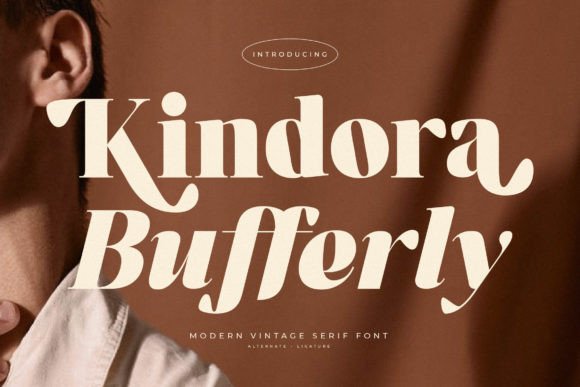
Introducing Kindora Bufferly Font: A Modern Vintage Serif Luxury Font
In the world of typography, fonts play a crucial role in conveying the tone and personality of a brand or project. For those seeking a luxurious and sophisticated look, Kindora Bufferly Font is an excellent choice. This modern vintage serif font, crafted by Letterena, is designed to elevate your projects with its elegant and refined aesthetic.
What is Kindora Bufferly Font?
Kindora Bufferly Font is a luxury serif font that exudes sophistication and elegance. Its modern vintage design makes it suitable for a wide range of projects, from logos and branding to packaging, posters, and more. This versatile font is perfect for those seeking to add a touch of luxury to their work.
Key Features of Kindora Bufferly Font
- Modern Vintage Design: Kindora Bufferly Font boasts a unique blend of modern and vintage elements, making it perfect for those seeking a sophisticated look.
- Luxury Serif Font: This font features intricate serifs that add a touch of elegance to any project.
- Versatile: Kindora Bufferly Font is suitable for a wide range of projects, including logos, branding, packaging, posters, and more.
- Easy to Read: Despite its ornate design, Kindora Bufferly Font remains highly legible, making it perfect for body text and headlines.
Use Cases for Kindora Bufferly Font
Kindora Bufferly Font is an incredibly versatile font that can be used in a variety of projects, including:
- Logos and Branding: Create a luxurious and sophisticated brand identity with Kindora Bufferly Font.
- Homeware Designs: Add a touch of elegance to your homeware designs, such as invitations, greeting cards, and labels.
- Product Packaging: Elevate your product packaging with Kindora Bufferly Font, perfect for luxury goods and high-end products.
- Mugs and Apparel: Create stunning designs for mugs, t-shirts, and other apparel with Kindora Bufferly Font.
- Posters and Quotes: Use Kindora Bufferly Font to create eye-catching posters and quotes that demand attention.
Benefits of Using Kindora Bufferly Font
By incorporating Kindora Bufferly Font into your projects, you can:
- Elevate Your Brand: Add a touch of luxury and sophistication to your brand identity.
- Stand Out: Differentiate yourself from competitors with a unique and eye-catching font.
- Convey Elegance: Use Kindora Bufferly Font to convey elegance and refinement in your projects.
- Increase Legibility: Despite its ornate design, Kindora Bufferly Font remains highly legible, making it perfect for body text and headlines.
Tips for Using Kindora Bufferly Font
To get the most out of Kindora Bufferly Font, follow these tips:
- Use it Sparingly: Use Kindora Bufferly Font to add a touch of luxury to specific elements of your design, rather than overusing it.
- Experiment with Colors: Try pairing Kindora Bufferly Font with different colors to create a unique and eye-catching design.
- Mix and Match: Combine Kindora Bufferly Font with other fonts to create a unique and visually appealing design.
Kindora Bufferly Font is a luxurious and sophisticated font that can elevate your projects with its elegant and refined aesthetic. With its modern vintage design, versatility, and ease of use, this font is perfect for those seeking to add a touch of luxury to their work. Whether you’re a designer, entrepreneur, or simply someone looking to create stunning designs, Kindora Bufferly Font is an excellent choice.
- What is Kindora Bufferly Font? Kindora Bufferly Font is a luxury serif font designed by Letterena, suitable for a wide range of projects.